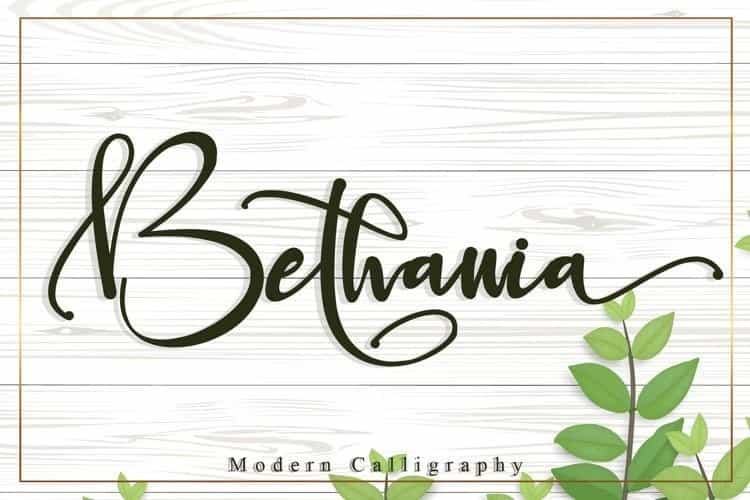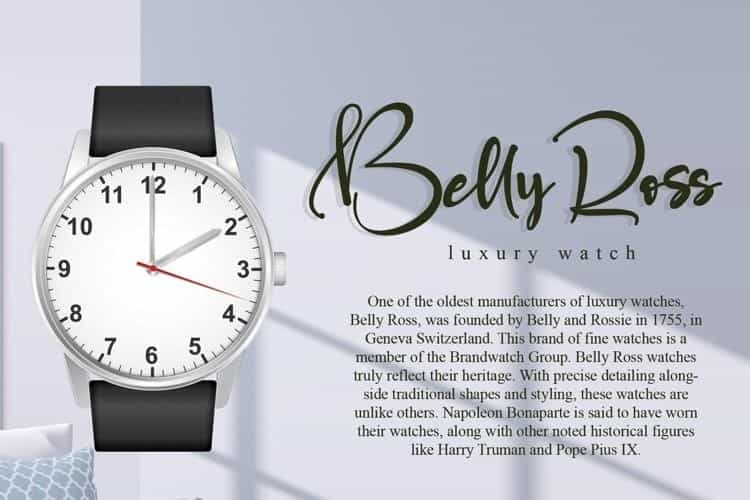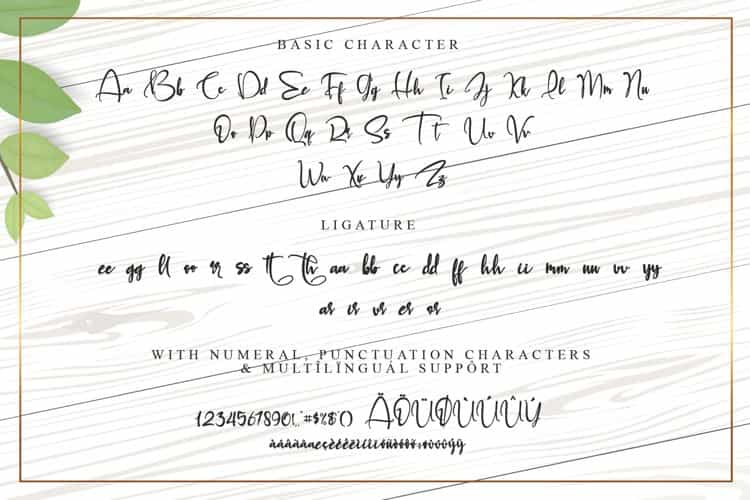
Discover Bethania Modern Calligraphy Font, part of the Calligraphy collection—a versatile and unique font perfect for adding a personal touch to your projects. Download it for free and enjoy crafting designs with style, from invitations to social media posts. This font is available exclusively for personal use, giving you the freedom to create without limits. Unlock your creativity with Bethania Modern Calligraphy Font today!
Bethania seems to be a calligraphy font family suitable for any occasion that requires a script font. Every letter is written carefully and purposefully for every project. This font has some script like features that will help to give your invitation quotes, blog posts or any other creative project you are working on a little bit of a twist. Experiment, with characters to adjust it to your needs for the project. It is also recommended that you include a swash for a flair.